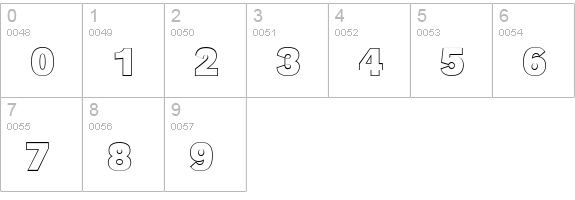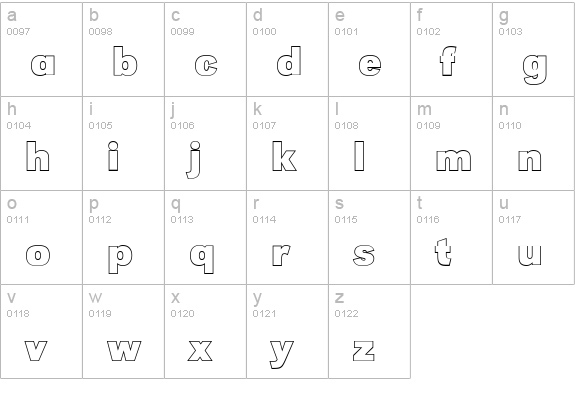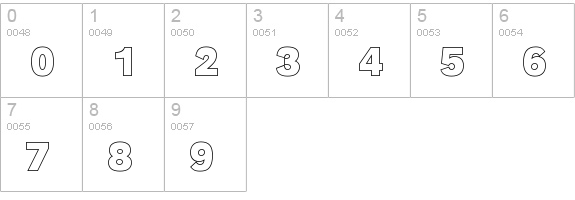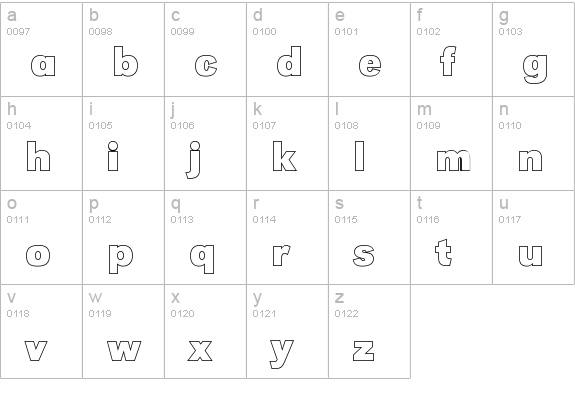
GroteskOu-Bold is a strong, high-contrast variant in the GroteskOu typeface family \xE2\x80\x94 well suited to headlines, attention-grabbing titles, and strong calls-to-action.
GroteskOu-Bold is a modern and versatile typeface that exudes strength and confidence. Its bold design makes a bold statement while maintaining a clean and professional look. This font is perfect for headlines, posters, branding, and other creative projects that require a strong and impactful visual presence. What sets GroteskOu-Bold apart is not only its boldness but also its versatility. It can adapt to various design styles and themes, making it a great choice for designers and creatives looking for a font that can stand out in any project. The best part is that GroteskOu-Bold is available for free download at FontsMarket.com. This means that you can easily access this powerful font and use it in your projects without any cost. Don't miss out on this opportunity to enhance your designs with the bold and striking GroteskOu-Bold font. Download it now and unleash your creativity!